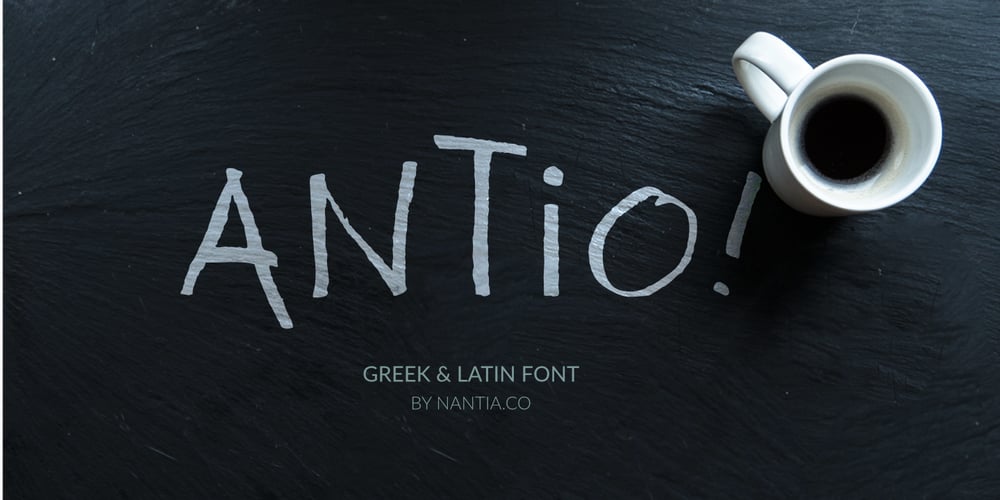
Antio Font Family was designed by Konstantina Louka and published by Nantia.co. Antio contains 1 styles and family package options. ANTIO Greek Font is a brush font. ANTIO Greek Font is an all Caps marker font. Also, the font is a multilingual font with Greek (of course), Latin characters and diacritics. The style of this typeface is perfect for your modern graphic design needs.Food packaging, restaurant menus, coffee and bar menus, and food industry branding are some examples of the numeral applications of this typeface. The shabby-chic style of the font is perfect for your graphic design needs like social media quotes, blog headers, posters, art projects and why not packaging, and logotypes.